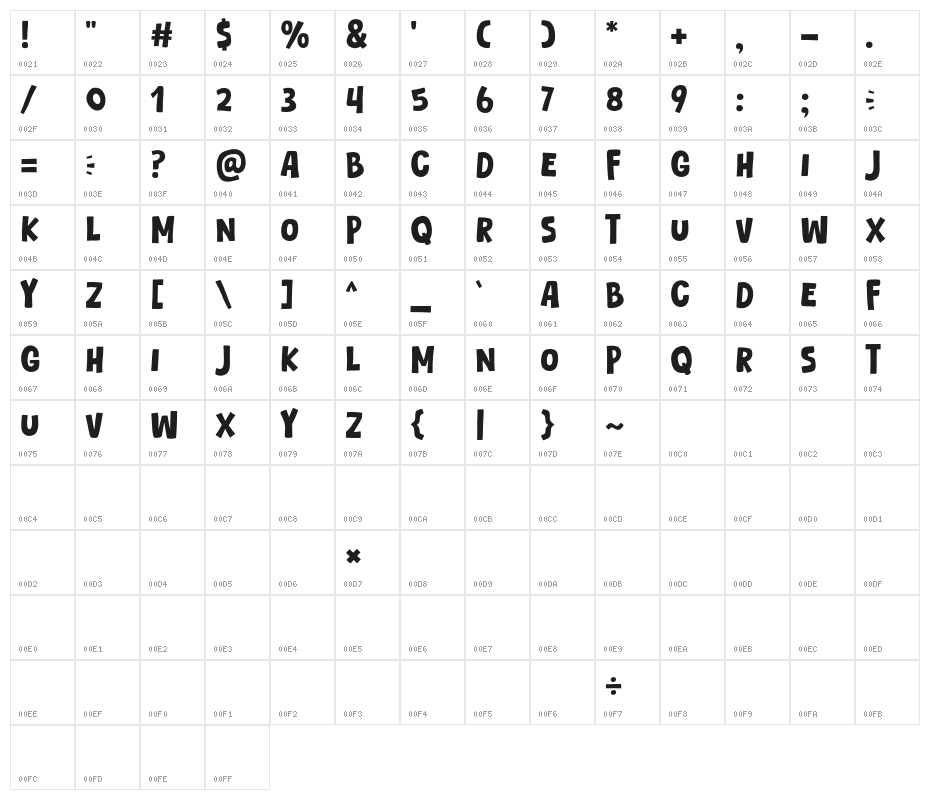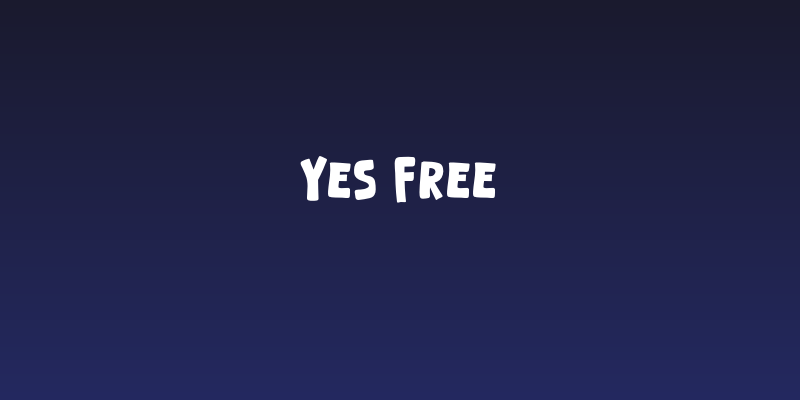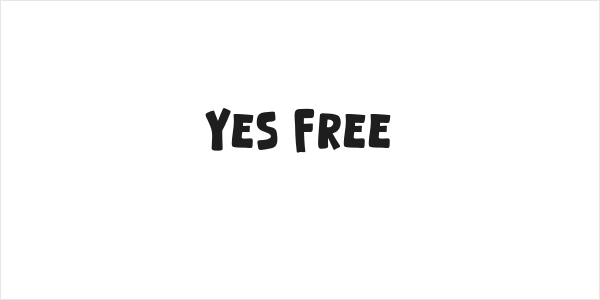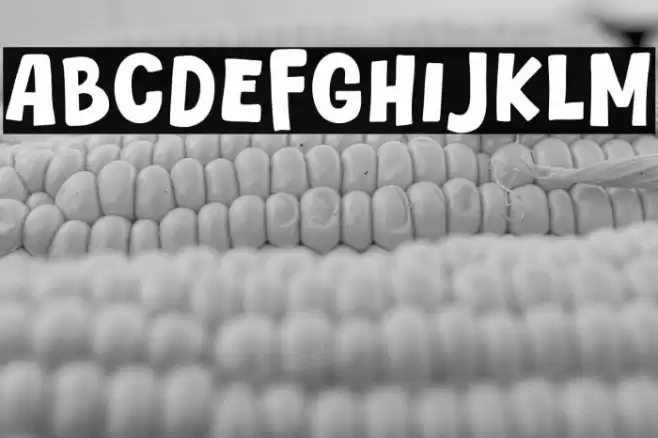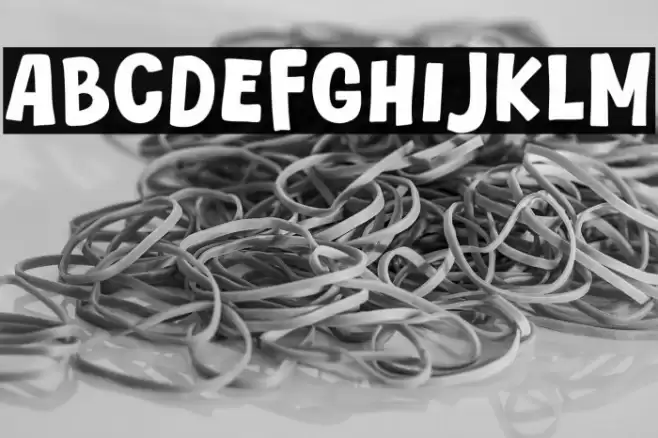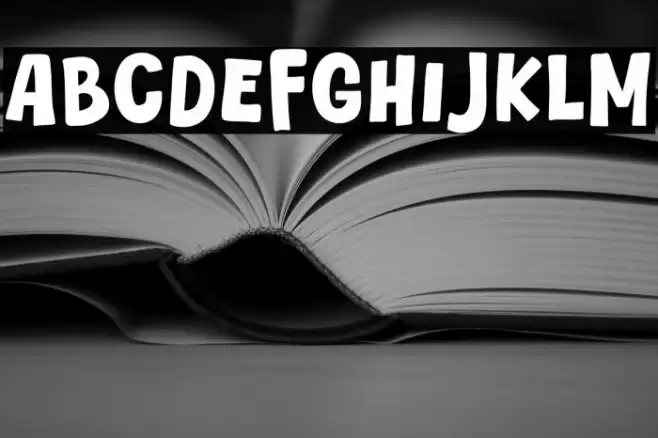
Yes Free Font
Yes Free Description
This font features a playful and bold style with a hand-drawn appearance. The characters are slightly irregular, giving it a whimsical and informal feel. The uppercase and lowercase letters maintain a consistent weight, contributing to its boldness. The numbers and special characters are equally bold and maintain the same playful style. This font is ideal for projects that require a fun and engaging look, such as children's books, posters, or casual branding. Its unique style stands out, making it suitable for eye-catching designs.
| Overall Style | Playful and informal |
| Proposed Projects | Ideal for children's books, playful posters, casual branding, and eye-catching designs. |